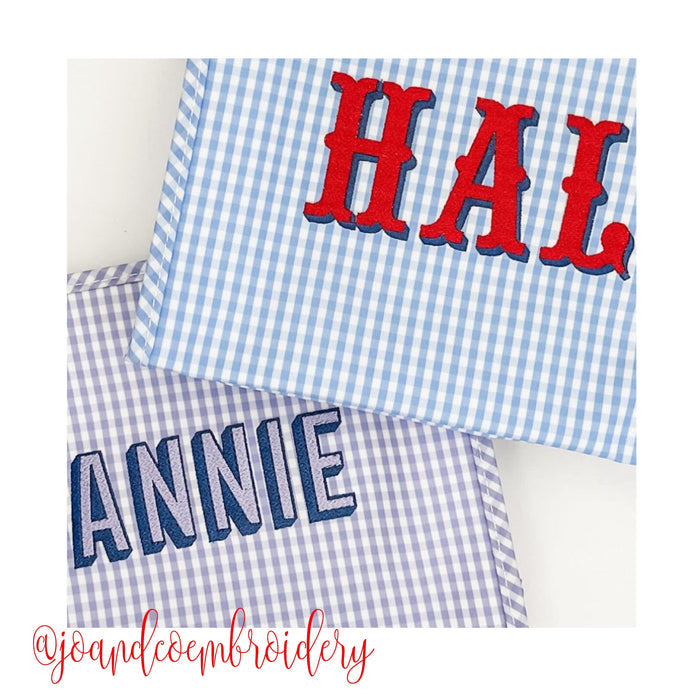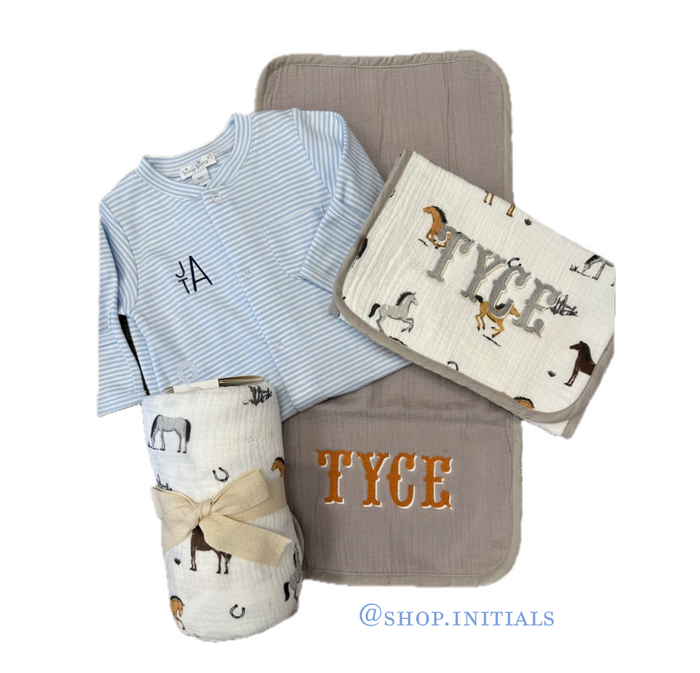
Western Shadow 4X4 Embroidery Font
Unleash your creativity with the Western Shadow 4X4 Embroidery Font! This two-tone font showcases a beautiful blend of contrasting embroidery fill and satin stitches, perfect for monogramming projects on embroidery machines. Ideal for personalized gifts or home decor, this font set includes uppercase letters A-Z in an accessible format.